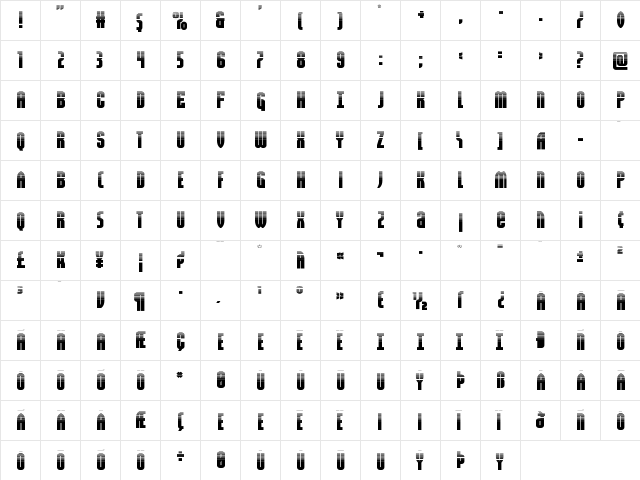
Valiant Times Halftone Regular
Design Context for Valiant Times Halftone Typeface
Valiant Times Halftone offers clean, dependable letterforms without strong stylistic allegiance, making it a practical choice for designers who need flexibility.